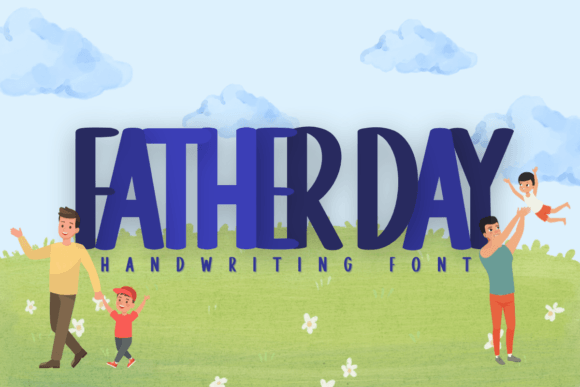
Introduction to Father Day Font
Father Day is a handwritten font.
👤 Author Chonada
You can use it for taking notes, writing a diary or making greeting cards However you can still use it for other designs such as banners content mugs cards shirts stationery social media posts and more.
Key Features of Father Day Font